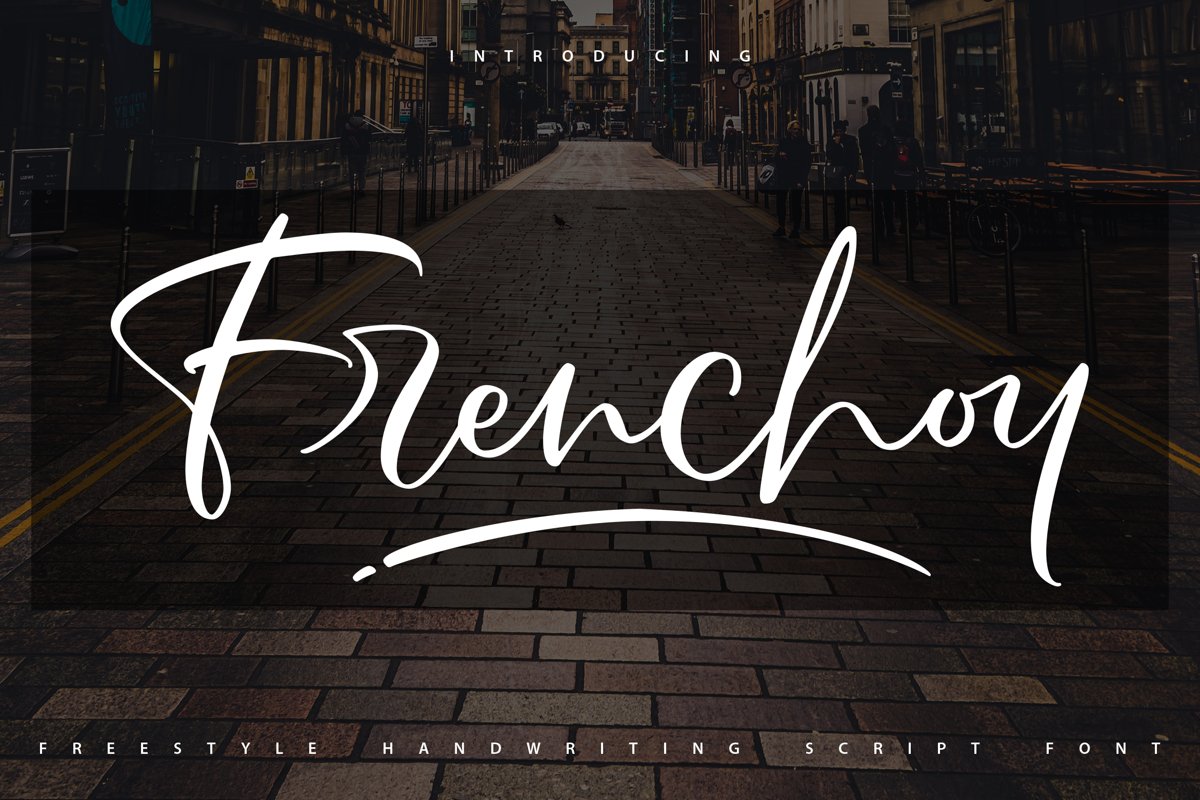
Frenchoy | Handwriting Script Font
Frenchoy
**Frenchoy | Handwriting Script Font** with a calligraphy style, So beautiful on invitation like greeting cards, branding materials, business cards, quotes, posters, and more!
* Tons of glyphs
* Alternates and Ligatures
* Fonts include **Multilingual Support**